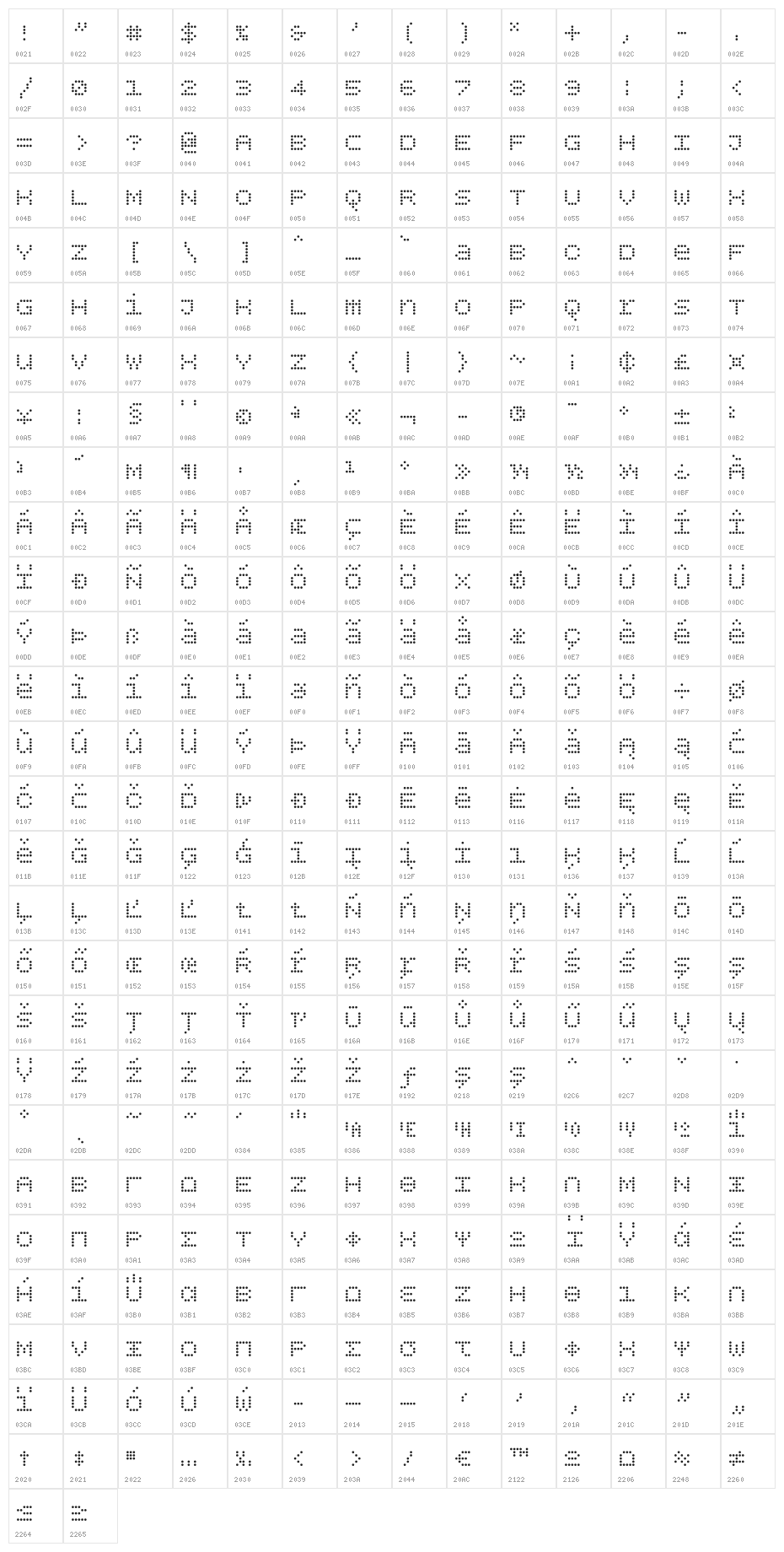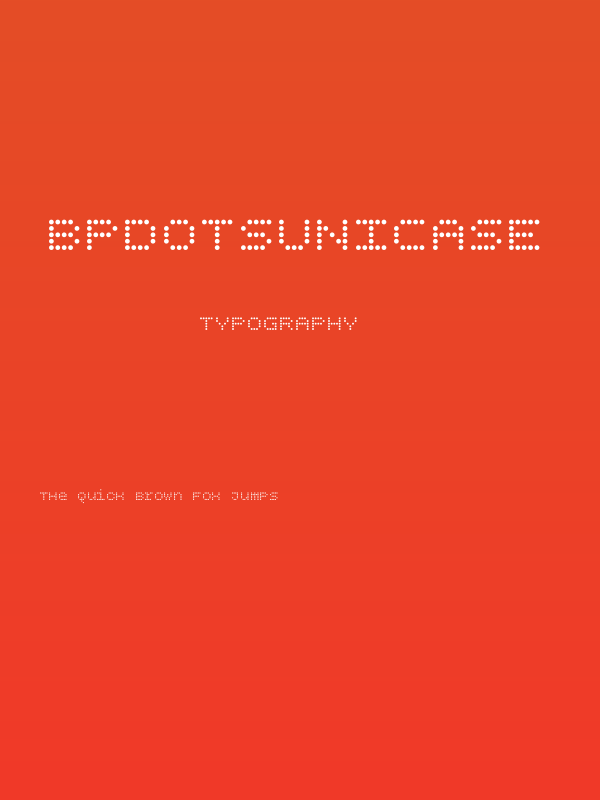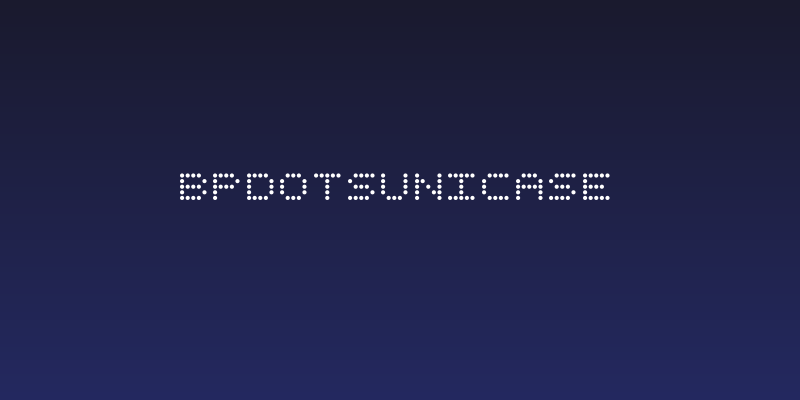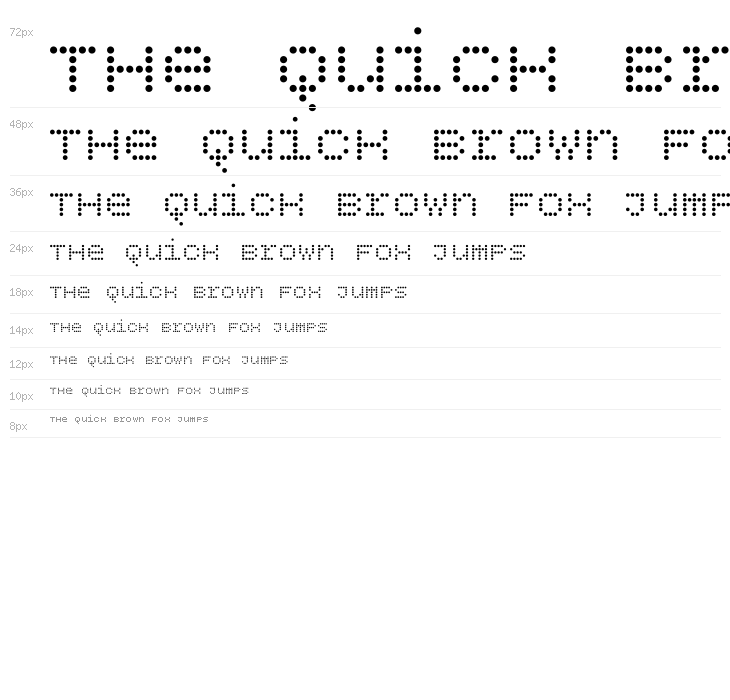
BPdotsUnicase Font
BPdotsUnicase Description
This font features a unique dot matrix style, where each character is composed of a series of evenly spaced dots. The design is uniform across both uppercase and lowercase letters, as well as numbers and special characters, giving it a cohesive and modern appearance. The spacing between the dots is consistent, creating a clean and structured look. This font is particularly suitable for digital displays or projects that require a futuristic or tech-inspired aesthetic. Its geometric precision and simplicity make it versatile for various design applications.
| Use Case | Logos, Headlines, Digital displays |
| Proposed Projects | Ideal for digital displays, tech-themed designs, modern art projects, and innovative branding. |